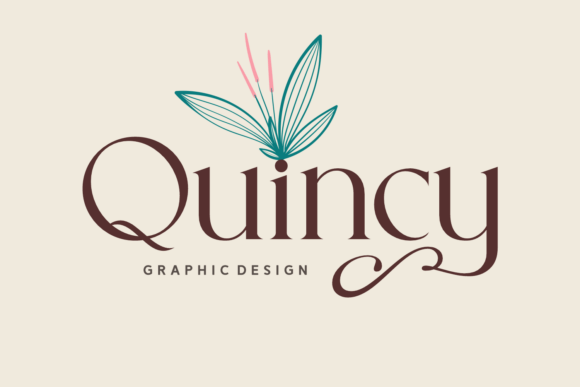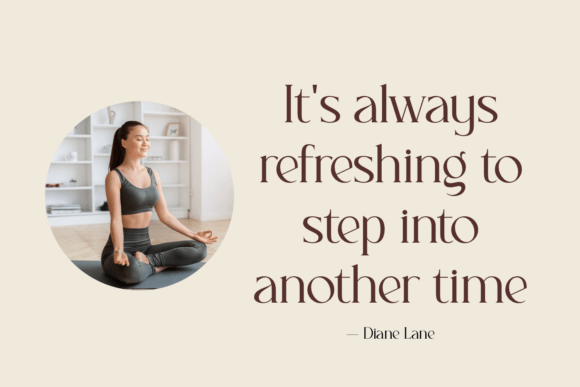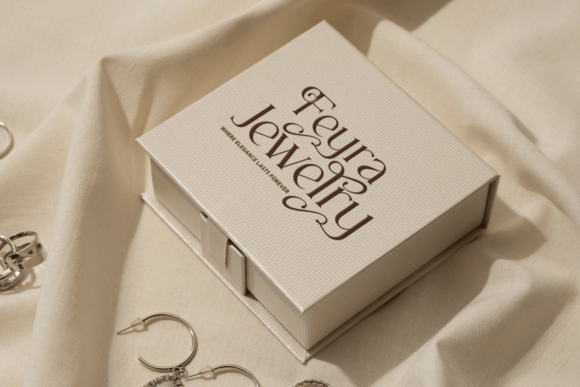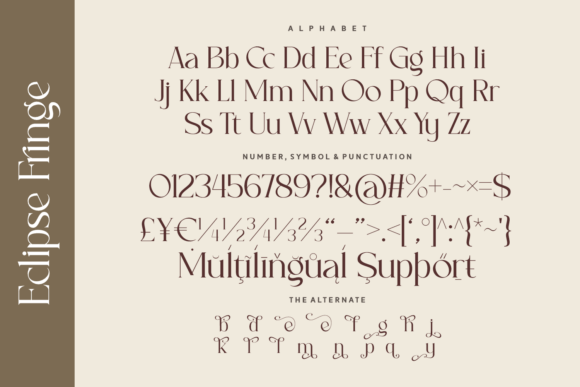
Eclipse Fringe Font: Elevate Your Brand with Elegance and Sophistication
In the world of typography, a well-crafted font can make all the difference in elevating a brand’s visual identity. Introducing Eclipse Fringe, a modern serif typeface designed to bring a touch of elegance and sophistication to logo design, branding, and editorial projects. This beautiful font seamlessly blends graceful curves with strong letterforms, creating a unique and captivating visual experience.
A Font that Embodies Femininity and Assertiveness
Eclipse Fringe’s distinctive design makes it an ideal choice for brands looking to convey a sense of femininity and assertiveness. The font’s flowing curves and refined lines create a sense of fluidity, while its sturdy letterforms ensure a strong and confident presence. This harmonious balance of soft and hard elements makes Eclipse Fringe a versatile font suitable for a wide range of applications.
Perfect for Boutique Branding and Upscale Product Labels
Eclipse Fringe’s flourished details and artistic flow make it particularly well-suited for boutique branding, skincare and beauty packaging, florist logos, and upscale product labels. The font’s elegant and refined appearance instantly conveys a sense of luxury and sophistication, helping brands to stand out in a crowded market. Whether you’re designing a logo, packaging, or editorial content, Eclipse Fringe is sure to bring a touch of high-end style to your project.
Stand Out in Minimalist Layouts
One of the key benefits of Eclipse Fringe is its ability to shine in minimalist layouts. In an era where simplicity and clean design are increasingly popular, this font provides a beautiful and elegant solution for brands looking to make a statement. Its refined lines and flowing curves add a touch of sophistication to even the most straightforward designs, ensuring that your brand’s message is conveyed with clarity and style.
Tell Your Brand’s Story with Beauty and Clarity
Eclipse Fringe is more than just a font – it’s a tool for storytelling. Its elegant and refined appearance helps brands to convey their message with beauty and clarity, creating a lasting impression on their audience. Whether you’re a designer, craftsperson, or brand owner, this font provides a versatile and sophisticated solution for elevating your visual identity.
Key Features of Eclipse Fringe
• Modern serif typeface designed for logo design, branding, and editorial projects
• Blends graceful curves with strong letterforms for a unique and captivating visual experience
• Flourished details and artistic flow make it perfect for boutique branding, skincare and beauty packaging, florist logos, and upscale product labels
• Suitable for minimalist layouts and a wide range of applications
• Elegant and refined appearance conveys a sense of luxury and sophistication
In conclusion, Eclipse Fringe is a stunning modern serif typeface that offers a unique blend of elegance, sophistication, and versatility. Its beautiful design makes it an ideal choice for designers, craftspersons, and brand owners looking to elevate their visual identity and tell their brand’s story with beauty and clarity. Whether you’re working on a logo design, branding project, or editorial content, Eclipse Fringe is sure to bring a touch of high-end style and sophistication to your work.